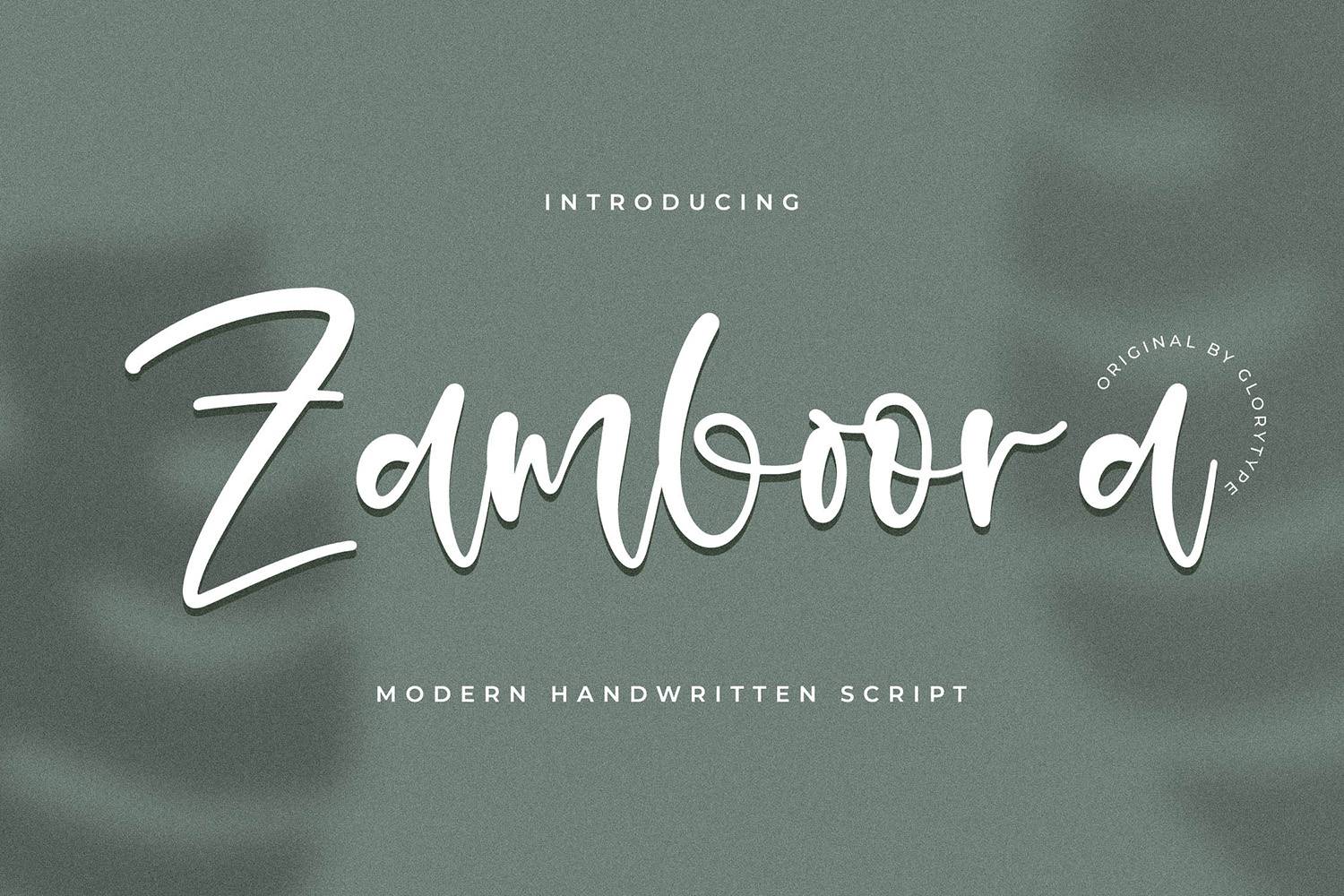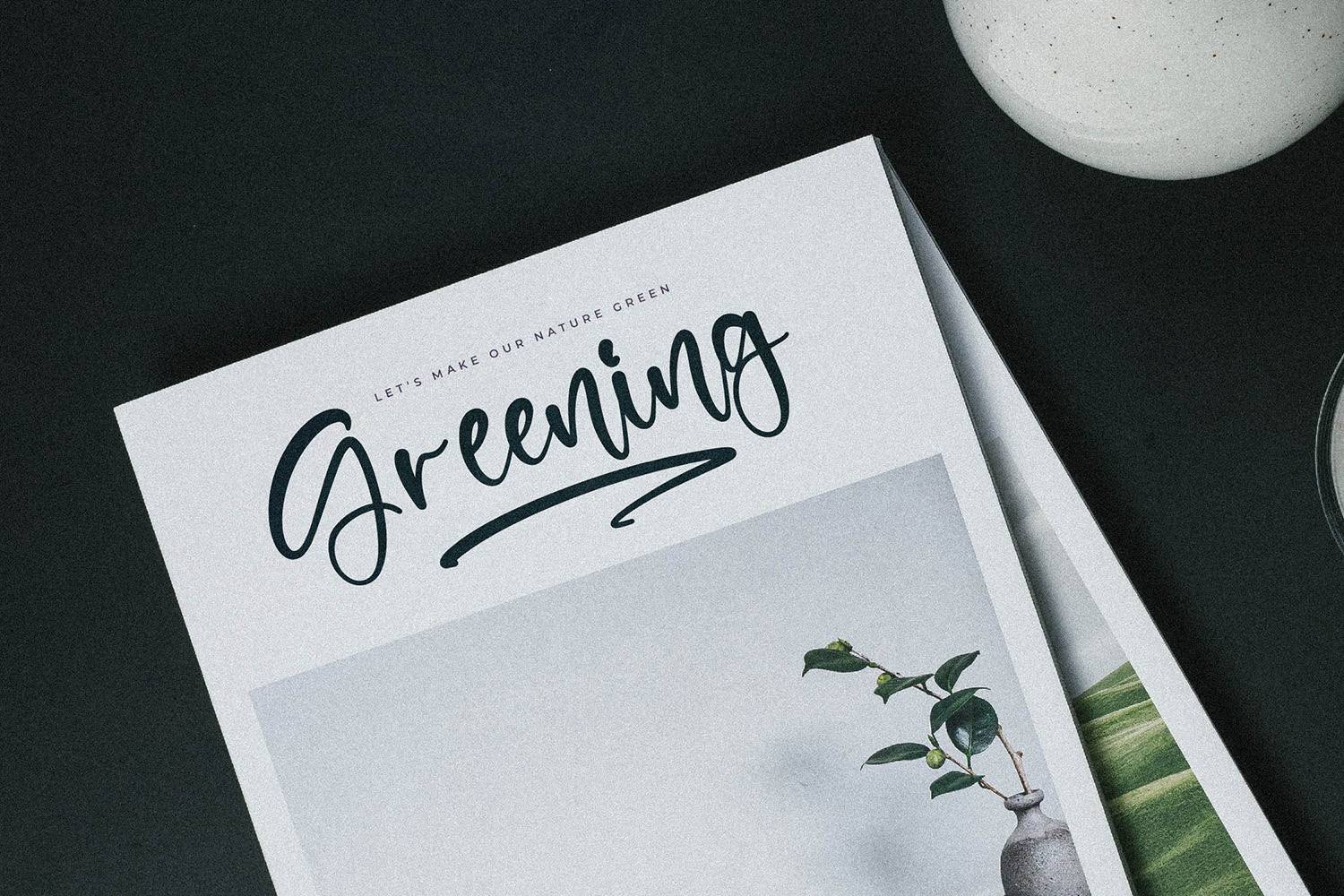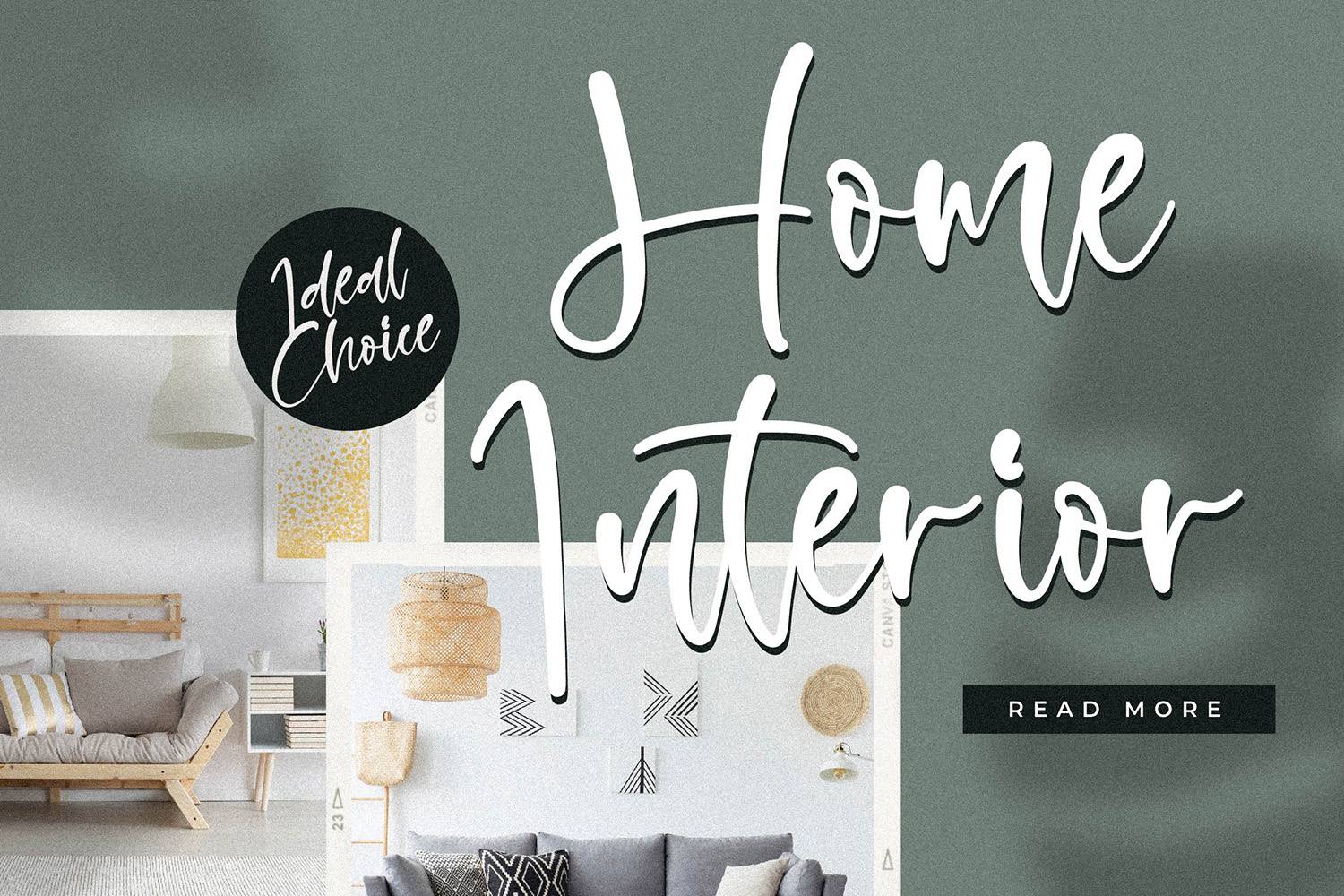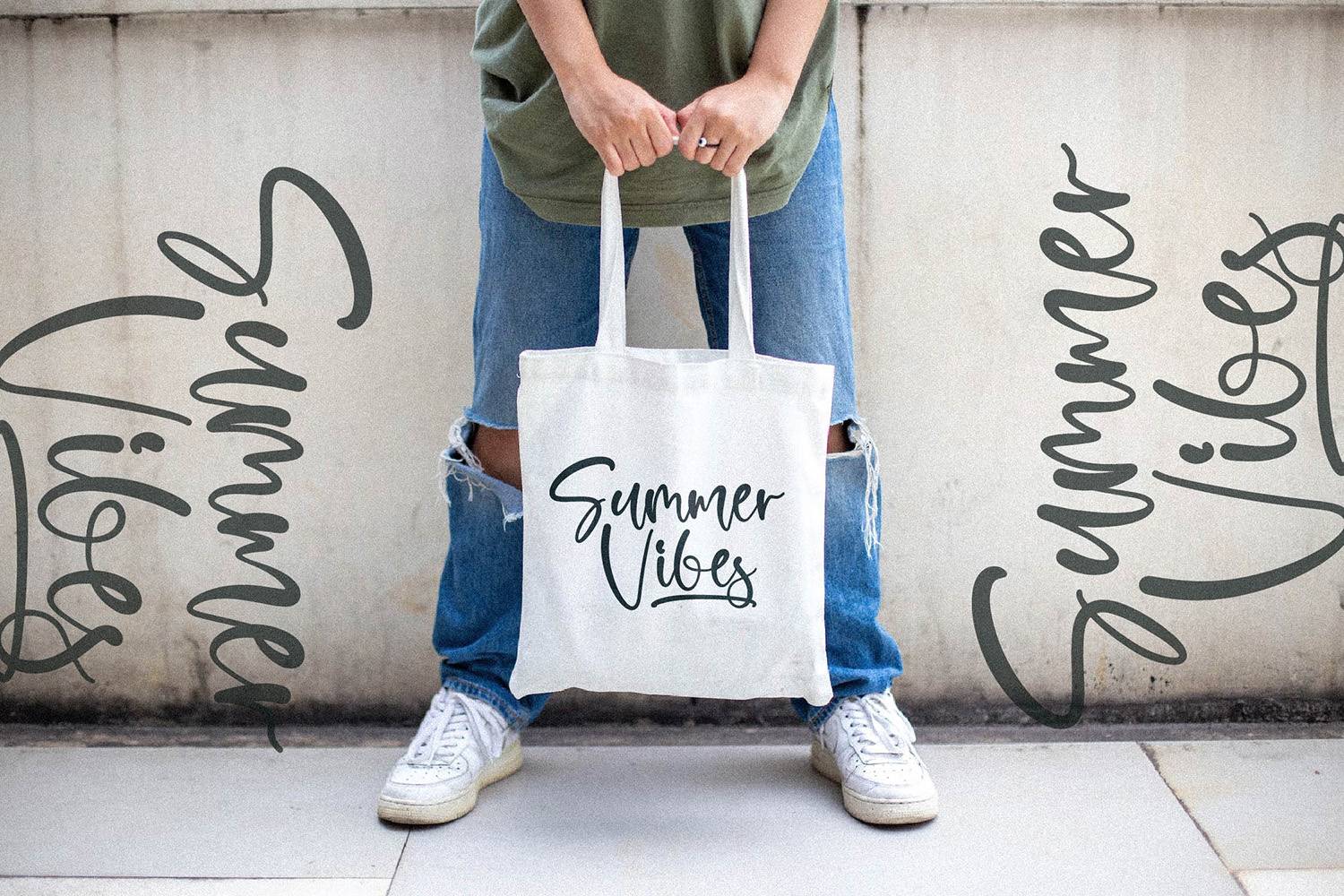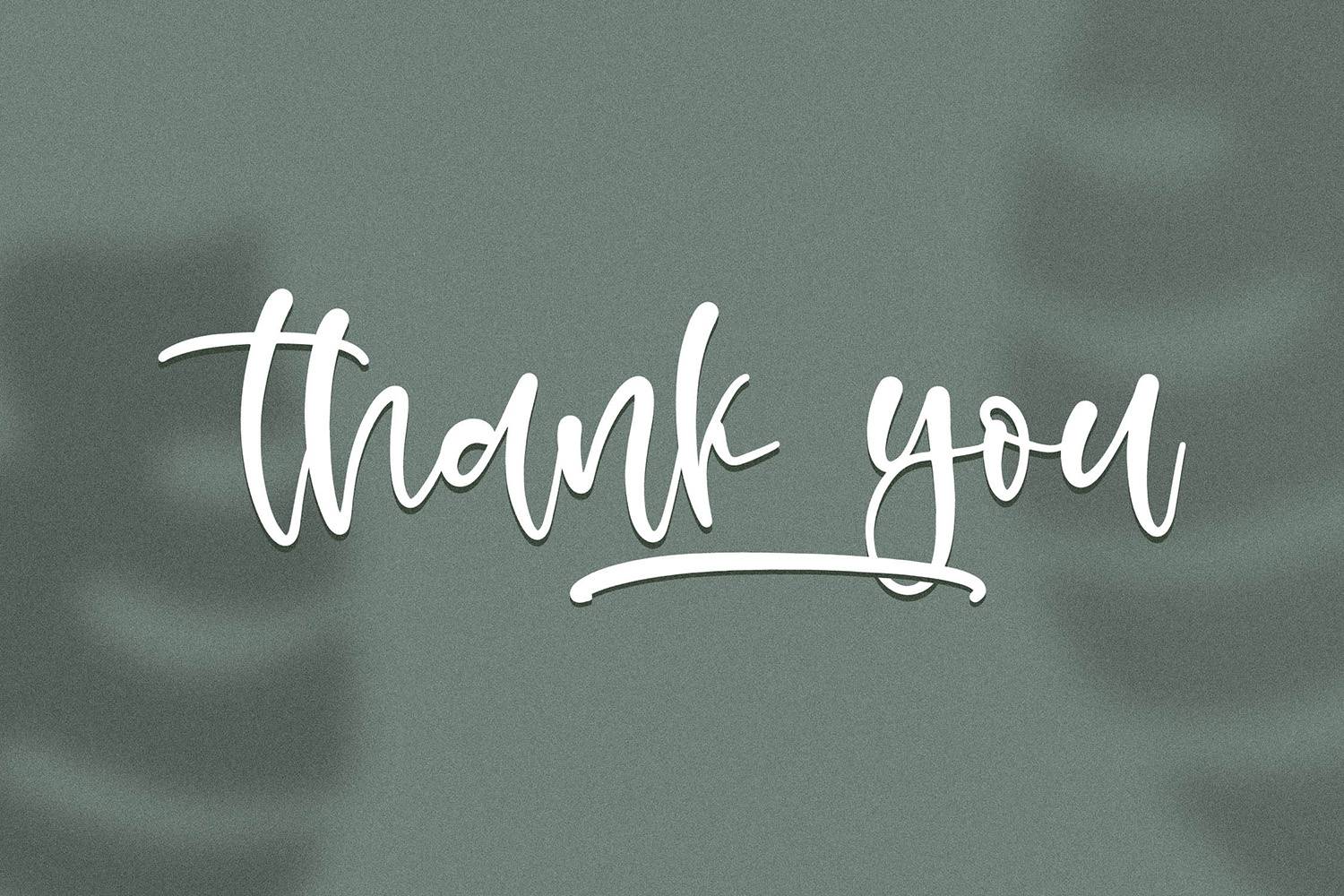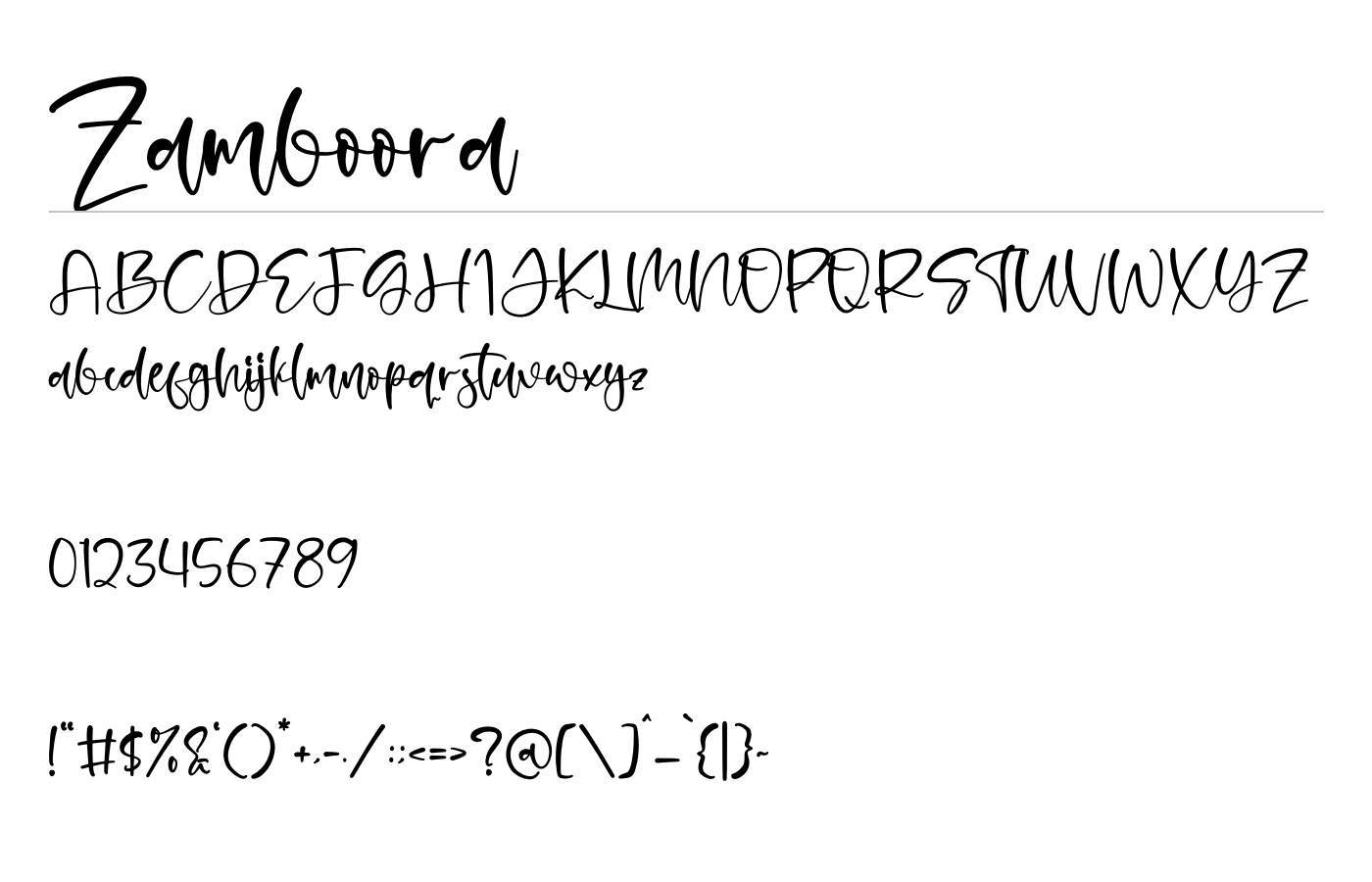
Zamboora is a playful and elegant handwritten script font with a casual yet refined style. It features fluid, slightly irregular strokes with a lively rhythm, making it ideal for creative, personal, and stylish branding or design projects. Its versatile character set and lively personality work well in logos, invitations, and social media graphics where a friendly and approachable feel is desired.
Zamboora Font
About Zamboora Font